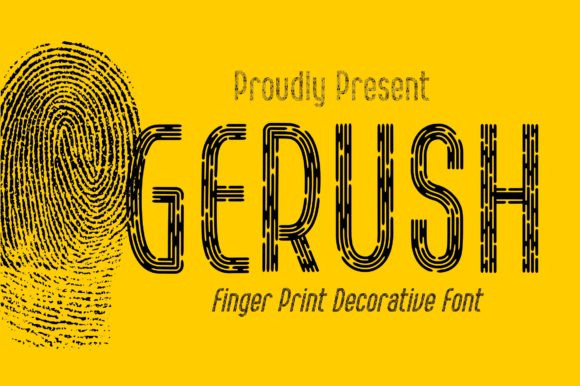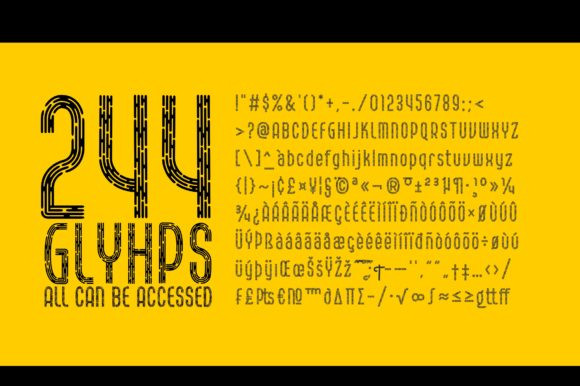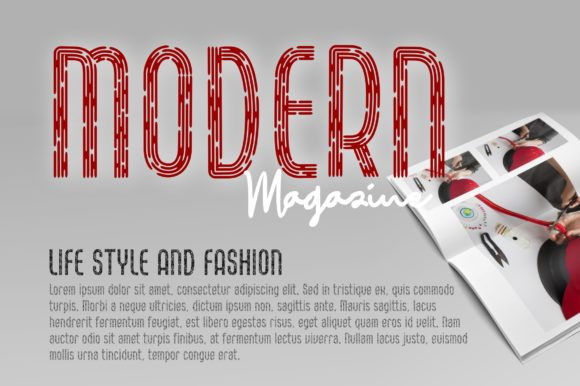
Gerush Font
Gerush is a genuine display font in the form of a fingerprint. This font is neatly crafted to present a formal yet memorable and unique feel. Add it confidently to your projects, and you will love the results.